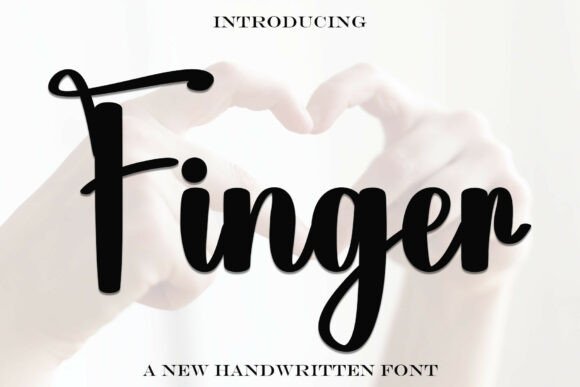
Finger Font: A Simple yet Versatile Handwritten Font for Your Creative Projects
In the world of typography, fonts play a crucial role in conveying the tone and personality of a brand or design. Among the numerous font styles available, handwritten fonts have gained immense popularity for their unique and personal touch. One such font that has caught the attention of designers and creatives is the Finger Font. In this article, we’ll explore the Finger Font, its characteristics, and its applications, as well as provide insights into why it’s an excellent choice for your next project.
What is Finger Font?
Finger Font is a simple handwritten font designed to add a touch of warmth and personality to your designs. As described, “Finger is a simple handwritten font. This versatile font has a wide spectrum of applications ranging from greeting cards to headlines and is guaranteed to add a simple and natural feel to your next project!” With its effortless and flowing strokes, Finger Font is perfect for creating a friendly and approachable atmosphere in your designs.
Key Characteristics of Finger Font
- Simple and Handwritten: Finger Font boasts a simple, handwritten style that exudes a sense of warmth and approachability.
- Versatile: This font is incredibly versatile and can be used for a wide range of applications, from greeting cards to headlines.
- Natural Feel: Finger Font adds a natural and organic feel to your designs, making them more relatable and engaging.
Applications of Finger Font
Finger Font’s versatility makes it suitable for various design projects. Here are some of the ways you can use Finger Font:
- Greeting Cards: Add a personal touch to your greeting cards with Finger Font’s warm and inviting style.
- Headlines: Use Finger Font to create eye-catching headlines that grab attention and convey a sense of friendliness.
- Branding: Finger Font can be used to create a unique and memorable brand identity that stands out from the crowd.
- Digital Marketing: Use Finger Font in your digital marketing materials, such as social media graphics, email newsletters, and blog posts, to add a personal touch.
Why Choose Finger Font?
With so many fonts available, why should you choose Finger Font for your next project? Here are some compelling reasons:
- Easy to Read: Finger Font is incredibly easy to read, making it perfect for body text and headlines.
- Unique Style: Finger Font’s simple yet distinctive style sets it apart from other fonts, ensuring your designs stand out.
- Time-Saving: With Finger Font, you can create professional-looking designs quickly and efficiently, saving you time and effort.
Tips for Using Finger Font Effectively
To get the most out of Finger Font, here are some tips to keep in mind:
- Pair with Other Fonts: Experiment with pairing Finger Font with other fonts to create a unique and visually appealing combination.
- Adjust Font Size: Adjust the font size to create visual hierarchy and emphasize important information.
- Use Color Effectively: Use color to enhance the overall aesthetic of your design and make Finger Font stand out.
In conclusion, Finger Font is a simple yet versatile handwritten font that’s perfect for adding a personal touch to your designs. With its effortless and flowing strokes, Finger Font is guaranteed to add a simple and natural feel to your next project. Whether you’re creating greeting cards, headlines, or branding materials, Finger Font is an excellent choice. So why not give Finger Font a try and experience the benefits of this amazing font for yourself?